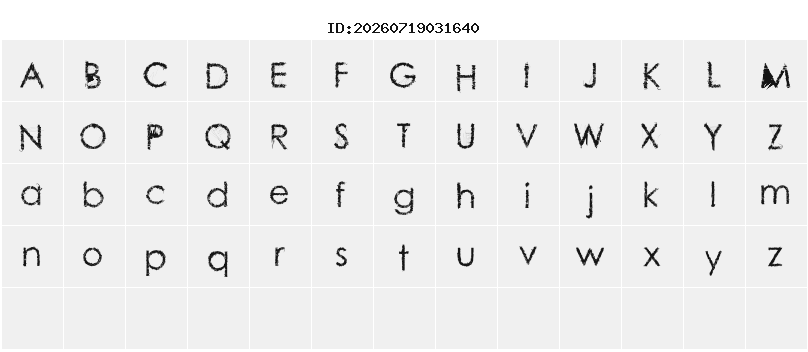
ContenG Preview
• Font Name: ContenG
• Full Font Name: ContenG
• Designer: cenz qobbal
• Manufacturer: cenz qobbal
About ContenG.ttf
ContenG.ttf is a modern, elegant sans-serif font designed for ultimate readability and visual harmony. Perfect for branding, headlines, web design, and print materials.